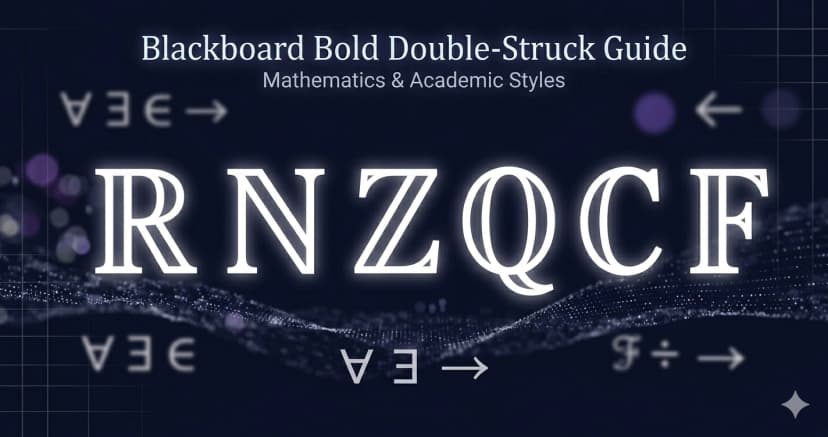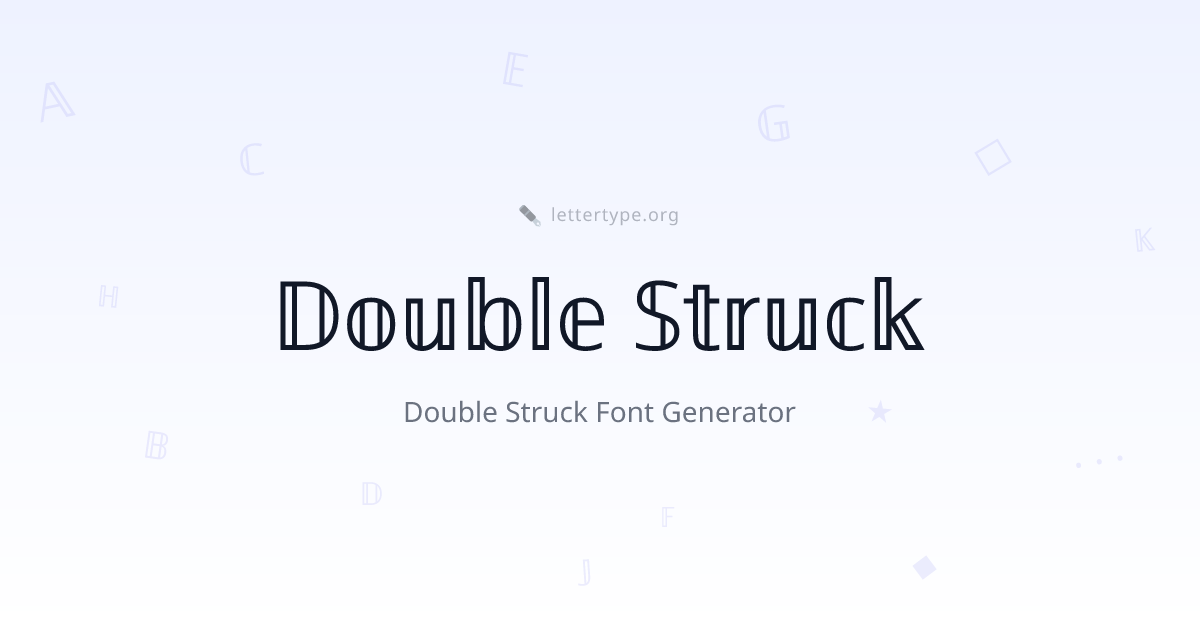
Double Struck Font Generator โ ๐ป๐ ๐ฆ๐๐๐ ๐๐ฅ๐ฃ๐ฆ๐๐ Text
Double struck font โ also called blackboard bold โ features letters with doubled vertical strokes, giving each character a hollow, structured appearance. Originally developed for mathematical publishing, these characters have become popular for stylish social media bios, math-aesthetic profiles, and anywhere you want text that looks distinctive without being over-the-top.
๐๐ฃ๐๐ฅ๐ ๐๐๐๐ ๐ ๐๐๐ฅ๐๐๐๐๐ฅ๐๐๐๐๐.
What Is Double Struck / Blackboard Bold?
Double struck characters originate from blackboard bold โ a style developed in mathematics classrooms where professors would draw bold letters on blackboards by making two parallel strokes instead of one filled stroke. The result is a letter with a distinctive doubled vertical line.
These characters come from the Mathematical Double-Struck block (U+1D538โU+1D56B) and include some well-known standalone symbols:
- โ โ Real numbers
- โค โ Integers (from German Zahlen)
- โ โ Natural numbers
- โ โ Complex numbers
- โ โ Rational numbers
- โ โ Primes (or projective space)
- โ โ Quaternions
- โค โ Integers
Double Struck Alphabet
Uppercase: ๐ธ ๐น โ ๐ป ๐ผ ๐ฝ ๐พ โ ๐ ๐ ๐ ๐ ๐ โ ๐ โ โ โ ๐ ๐ ๐ ๐ ๐ ๐ ๐ โค
Lowercase: ๐ ๐ ๐ ๐ ๐ ๐ ๐ ๐ ๐ ๐ ๐ ๐ ๐ ๐ ๐ ๐ก ๐ข ๐ฃ ๐ค ๐ฅ ๐ฆ ๐ง ๐จ ๐ฉ ๐ช ๐ซ
Where to Use Double Struck Text
Math and science profiles โ double struck is the native language of mathematical notation. Mathematicians, physicists, and students use it to signal their field instantly.
Instagram and Twitter bios โ the hollow, geometric look of double struck letters creates a clean, architectural aesthetic that's distinct from both regular text and more ornate styles.
Discord and Reddit โ perfect for math servers, study communities, and STEM-related profiles.
Academic Twitter/X โ researchers and academics use double struck text to add subtle visual interest to bios without sacrificing clarity.
Aesthetic profiles โ the geometric doubling creates a unique look that's minimal yet distinctive โ popular in design and architecture communities.
Double Struck in Mathematics
Double struck notation is standard across mathematics:
| Symbol | Meaning |
|---|---|
| โ | Set of all real numbers |
| โค | Set of all integers |
| โ | Set of all natural numbers |
| โ | Set of all complex numbers |
| โ | Set of all rational numbers |
These symbols appear in virtually every branch of mathematics โ from calculus to abstract algebra to topology.
Double Struck Font โ FAQ
What's the difference between double struck and gothic fraktur?
Both are from Unicode Mathematical blocks. Double struck (๐ธ๐นโ) has hollow letters with doubled strokes โ clean and geometric. Gothic fraktur (๐๐ โญ) has angular, broken strokes with ornate capitals โ dark and historical. Double struck reads as modern/mathematical; gothic reads as medieval/atmospheric.
Do double struck characters work on Instagram?
Yes. Instagram supports Unicode Mathematical Double-Struck characters in bios, display names, and captions. They render correctly on iOS and Android and count as one character per letter.
Are the number symbols (โ, โค, โ) in this generator?
Yes. The well-known mathematical set symbols โ (real numbers), โค (integers), โ (natural numbers), โ (complex numbers), and โ (rational numbers) are included in the double struck character set. Type the corresponding letter to get these symbols.
Why does double struck look good for minimal aesthetics?
The hollow letterforms create visual structure without heavy weight โ the doubled strokes add geometric interest while keeping the letters open and airy. This makes double struck a natural fit for minimalist, architectural, and clean aesthetic profiles that want visual distinction without decorative excess.
Can I use double struck text in academic papers?
Double struck Unicode characters work in plain text environments. For academic papers, LaTeX math mode uses \mathbb{} commands to produce the same characters in proper typeset form. For social media bios, slides, or digital communications, the Unicode versions work directly.